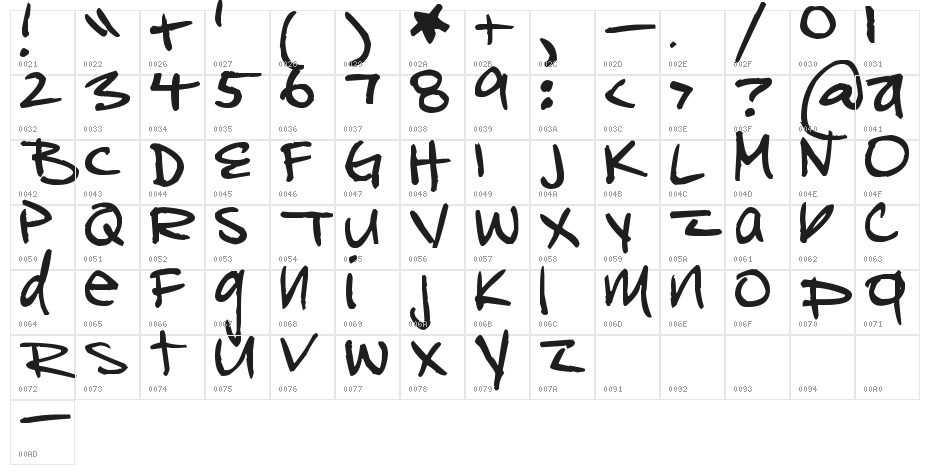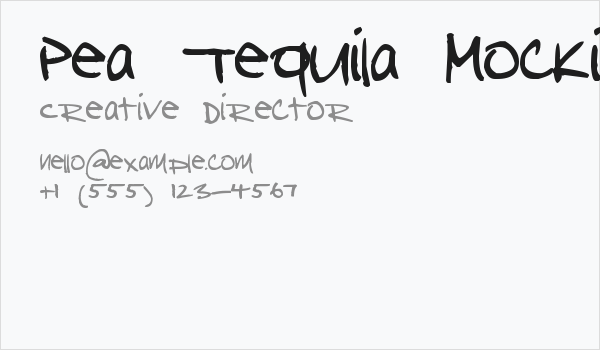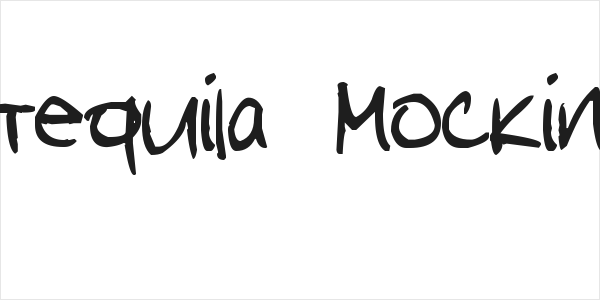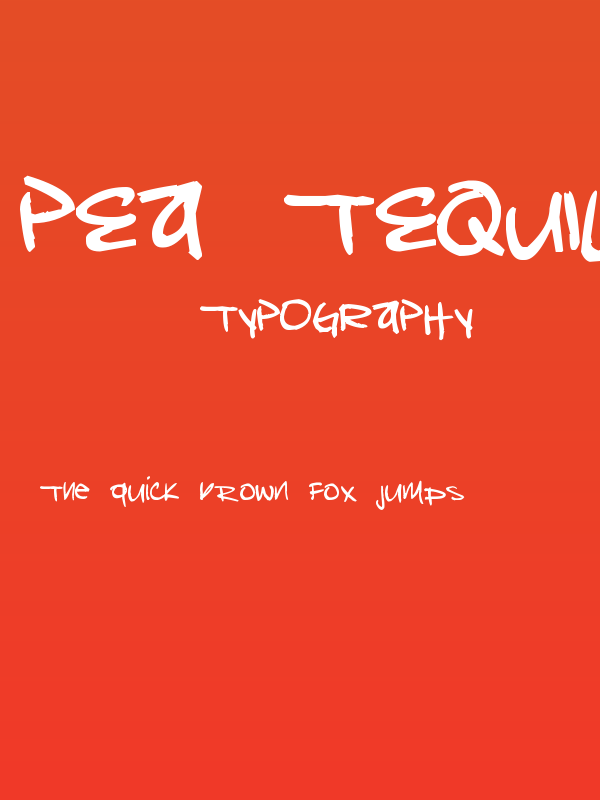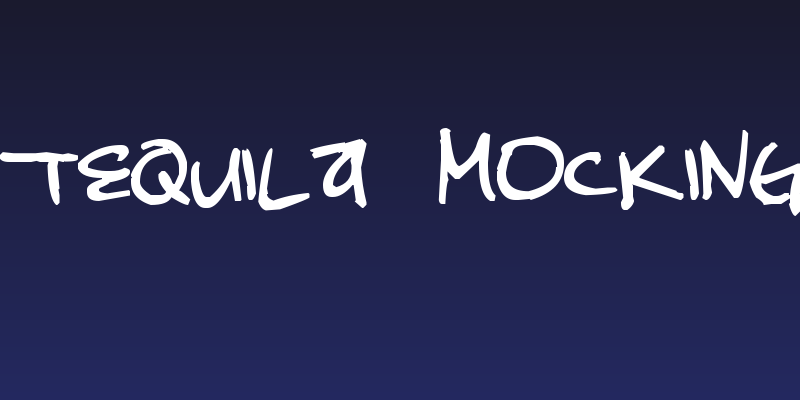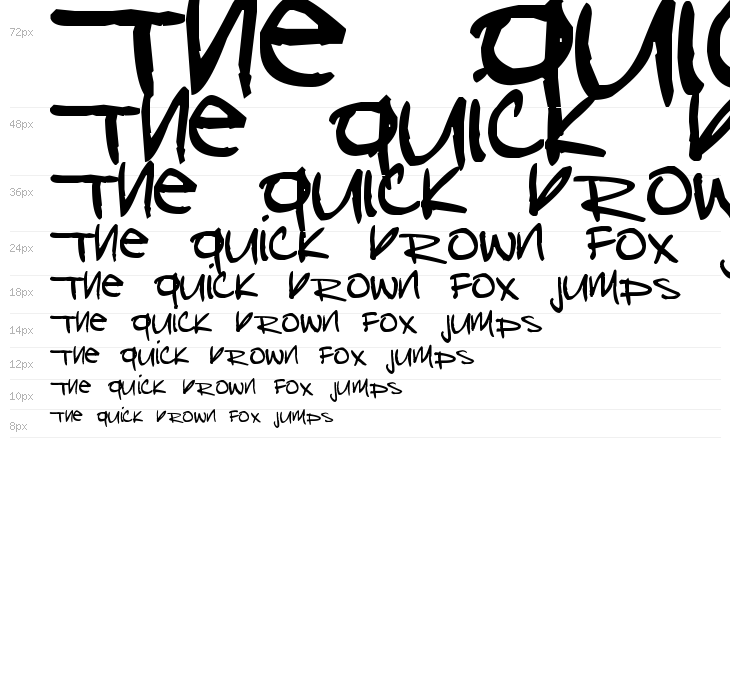
Pea Tequila Mockingbird Font
Pea Tequila Mockingbird Description
This font exudes a playful and casual handwritten style, characterized by its bold and slightly irregular strokes. The letters have a lively and spontaneous feel, with varying heights and angles that mimic natural handwriting. The uppercase and lowercase letters maintain a consistent style, while the numbers and special characters integrate seamlessly with the overall aesthetic. The font's energetic and informal appearance makes it ideal for projects that require a personal touch or a fun, relaxed vibe.
| Proposed Projects | Ideal for greeting cards, personal blogs, children's books, and informal branding. |